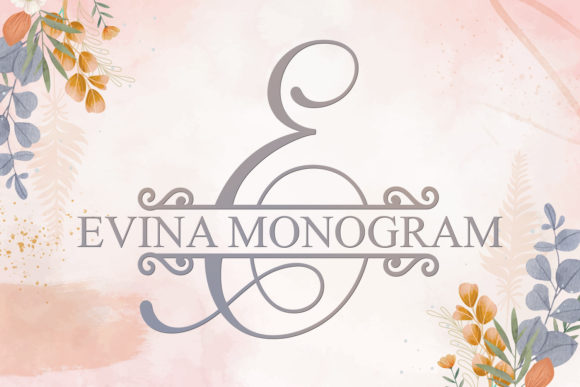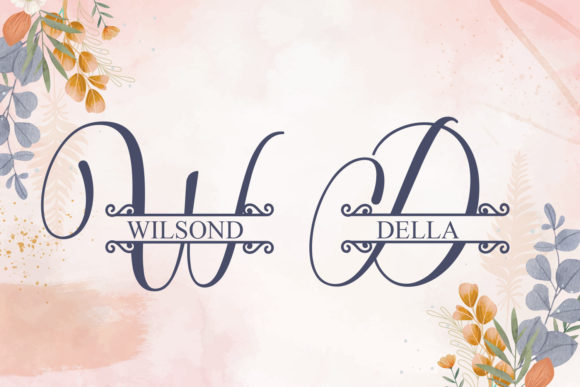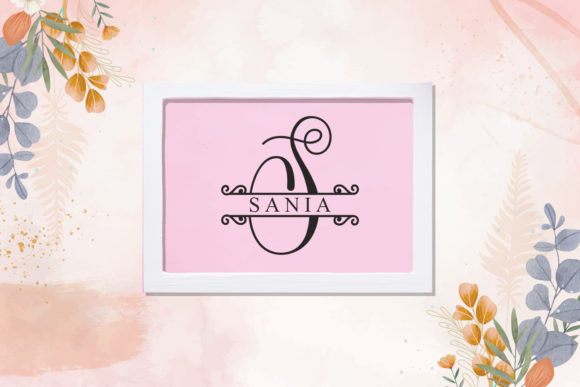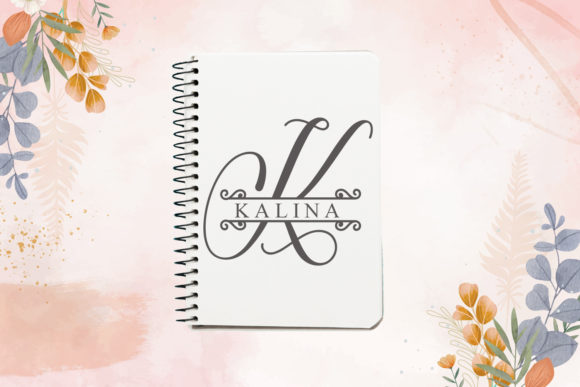
Evina Monogram Font Font
About the Evina Monogram Font Font
Step up your design game with Evina Monogram Font Font, a font that exudes confidence and style. Evina Monogram is a dainty and unique decorative font. Add this romantic and lovely looking font to each of your love letters, wedding invitations or favorite design ideas, and you will be astounded by the outcome.
Evina Monogram’s delicate nature makes it ideal for projects requiring a touch of romantic elegance. It excels in applications such as wedding stationery, logos for boutique businesses, or short, impactful headlines. However, its decorative style is less suitable for large blocks of text or user interfaces where readability is paramount.
Consider pairing Evina Monogram with a clean sans-serif like Lato for body copy to create a balanced and sophisticated aesthetic. For a more playful feel, a rounded geometric sans-serif such as Bebas Neue could complement its whimsical charm. Alternatively, a classic serif font, like Garamond, would provide a timeless contrast.
Evina Monogram projects a distinctly feminine and graceful personality, best suited for brands focused on beauty, luxury, or handcrafted goods. Its inherent romanticism should be carefully considered when selecting appropriate design contexts.